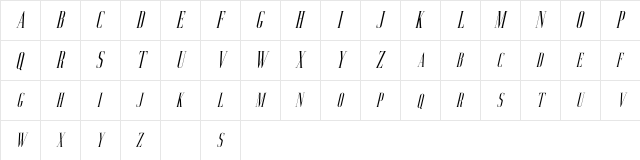
Aguero Serif Free Italic
Design Context for Aguero Serif Free Typeface
Aguero Serif Free brings classic typographic sensibility to the table — its serifs and measured letterforms reflect centuries of print heritage. The dynamic lean of this cut emphasises speed and emphasis in any layout.